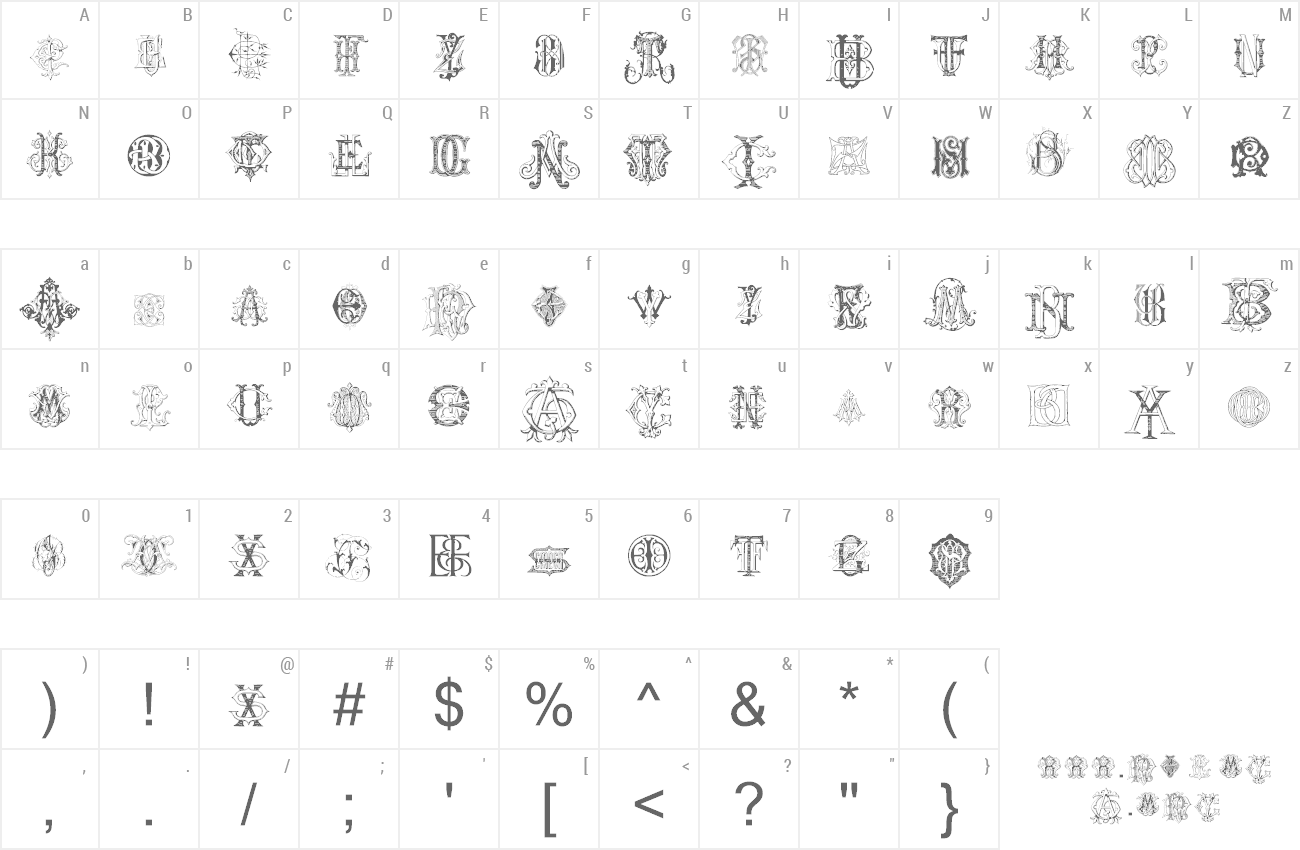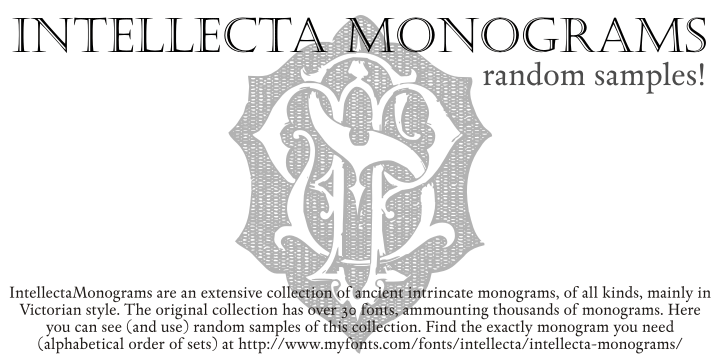
Intellecta Monograms Random Samples, by Intellecta Design Intellecta Monograms Random Samples is a random and limited set version of Intellecta Monograms, an extensive collection of fonts ammouting thousands of intrincated and vintage monograms, mainly in Victorian style, a Intellecta's best-seller over the last five years. To purchase the original fonts (alphabetical order of sets) and commercial licences, please, visit: http://www.myfonts.com/fonts/intellecta/intellecta-monograms/ Visit my commercial library : http://new.myfonts.com/foundry/Intellecta_Design/ Donations are appreciated! |